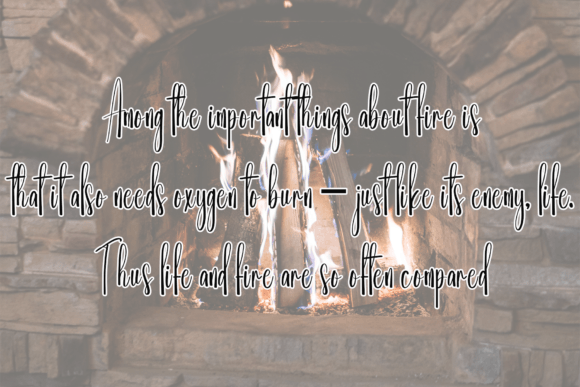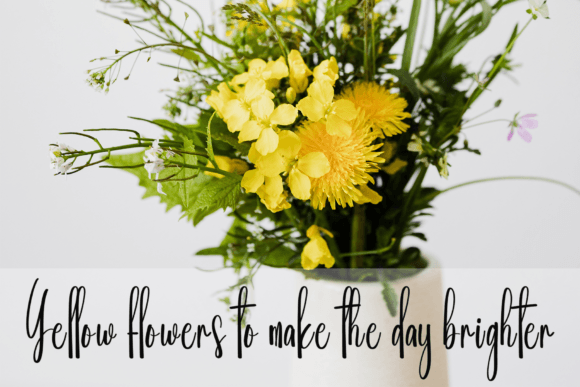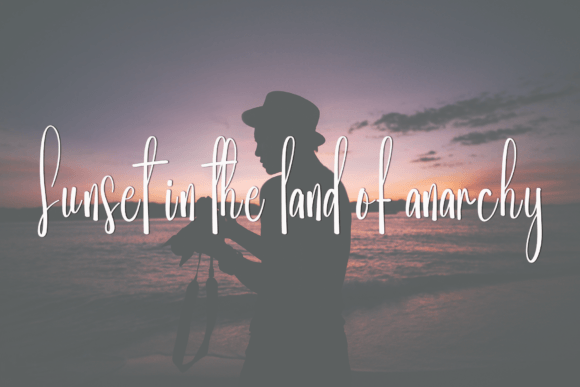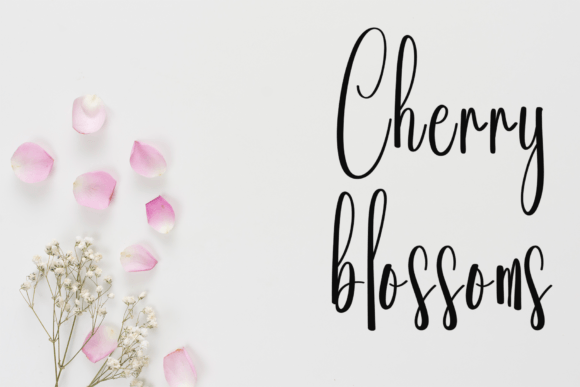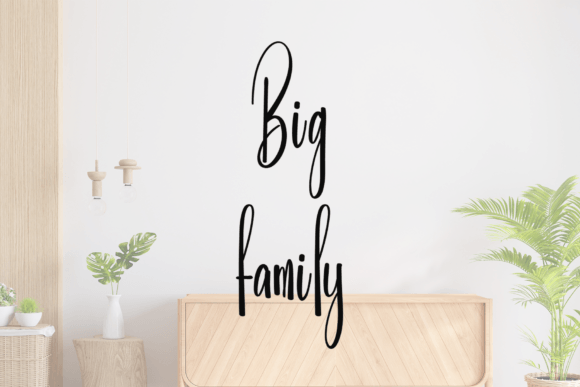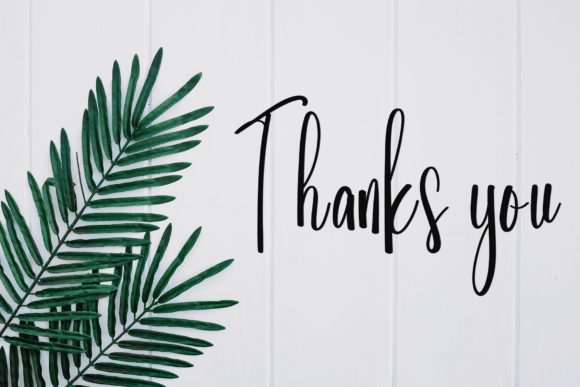
The Fireplace Font: A Cozy Addition to Your Design Arsenal
I’ll never forget the time I was working on a project for a client’s winter-themed campaign. I had all the elements in place – the snowflakes, the pinecones, the warm color palette – but something was missing. It wasn’t until I stumbled upon the Fireplace font that the entire design came together. There’s just something about this font that exudes warmth, coziness, and a dash of playfulness. In this article, I’ll share my experience with the Fireplace font, its features, and how to make the most of it in your designs.
I’ve had the pleasure of working with the Fireplace font on several projects, and here’s what I think:
• Versatility: This font is incredibly versatile and can be used in a wide range of designs, from winter-themed campaigns to cozy branding projects.
• Legibility: The font is easy to read, even at smaller sizes, making it perfect for body text or captions.
• 😍 Aesthetics: The handwritten style gives the font a personal, friendly feel that’s hard to achieve with more traditional fonts.
As for quirks, I’ve noticed a few:
• 🤔 Limited formal use: While the font is amazing for informal designs, it might not be the best choice for more formal or corporate projects.
• ⚠️ Glyph limitations: Some users have reported that the font could benefit from more glyphs, especially for non-English languages.
The Story Behind Fireplace
The Fireplace font was designed with one goal in mind: to bring warmth and coziness to your designs. Inspired by the crackling sound of a fireplace on a cold winter’s night, this font aims to evoke feelings of comfort and relaxation. Whether you’re designing a winter-themed campaign or simply want to add a touch of personality to your branding, Fireplace is the perfect choice.
Is Fireplace suitable for body text? While Fireplace is primarily designed for headings and titles, it’s also legible enough for use in body text, especially at larger sizes.